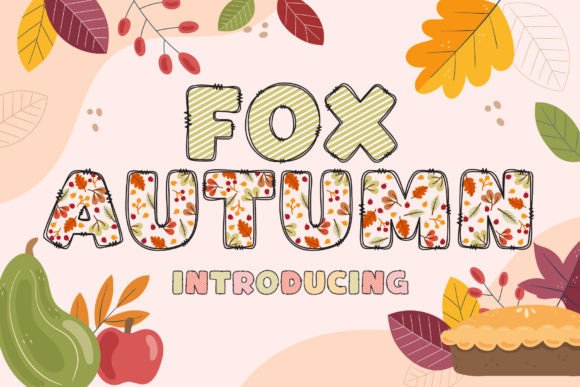
Immerse yourself in the world of Fox Autumn Font, a vibrant and playful display font family that will bring a touch of whimsy and charm to your digital creations. This delightful collection of colorful fonts, meticulously crafted by Fox7, is the ultimate choice for those seeking unique and captivating typefaces that promise to make their designs shine.
With its cheerful and expressive nature, Fox Autumn Font breathes life into any project, whether you're designing invitations, stationery art, social media posts, or greeting cards. Its authentic feel adds a personal touch that captivates and engages your audience, making your designs truly unforgettable.
Step into a realm of boundless creativity as you explore the versatility of Fox Autumn Font. This beautiful font family effortlessly adapts to a wide range of design styles, from playful and whimsical to elegant and sophisticated. Its charming aesthetic instantly elevates your designs, adding a touch of magic and delight that will leave a lasting impression.
Let your imagination soar as you unleash the full potential of Fox Autumn Font. Each character dances across the screen, carrying with it a story and a sense of wonder. Discover the joy of creating unique and eye-catching designs that reflect your personal style and captivate the hearts of your audience.
With Fox Autumn Font as your creative companion, you'll embark on a journey of self-expression and artistic fulfillment. Its vibrant colors and playful shapes will ignite your passion for design, inspiring you to create masterpieces that resonate with your audience and leave them longing for more.